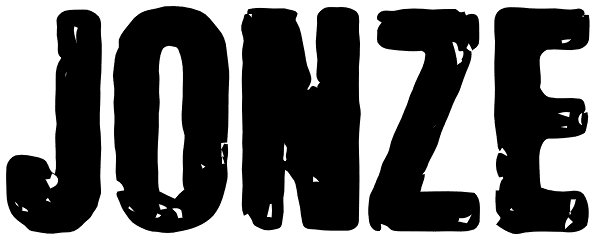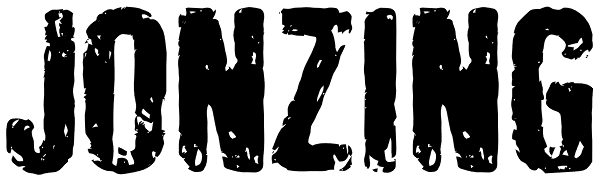
Jonze
Jonze & Jonzing from KC Fonts is an all uppercase based font that resembles a rubber stamp; Jonze being more on the saturated side and Jonzing on the rather dry. Both fonts each have four glyphs for each letter & two per number, which are accessed...
Jonze
Jonze Italic
Jonzing Italic
Jonzing